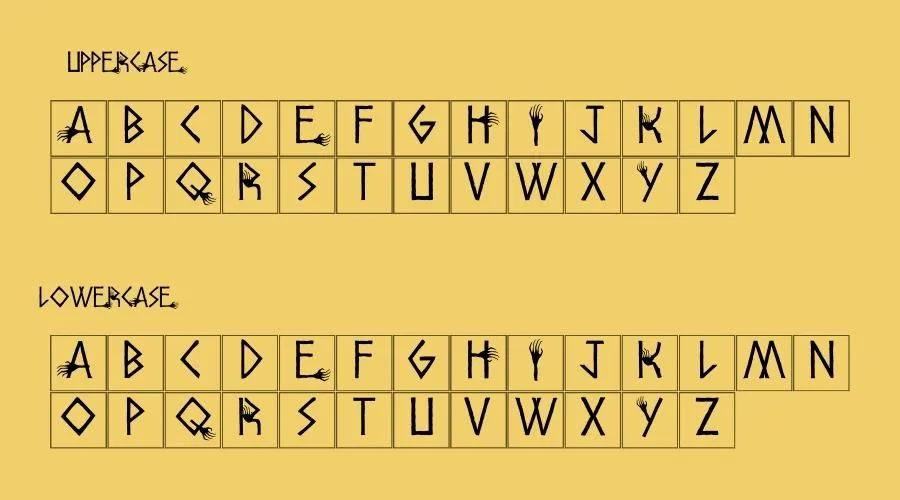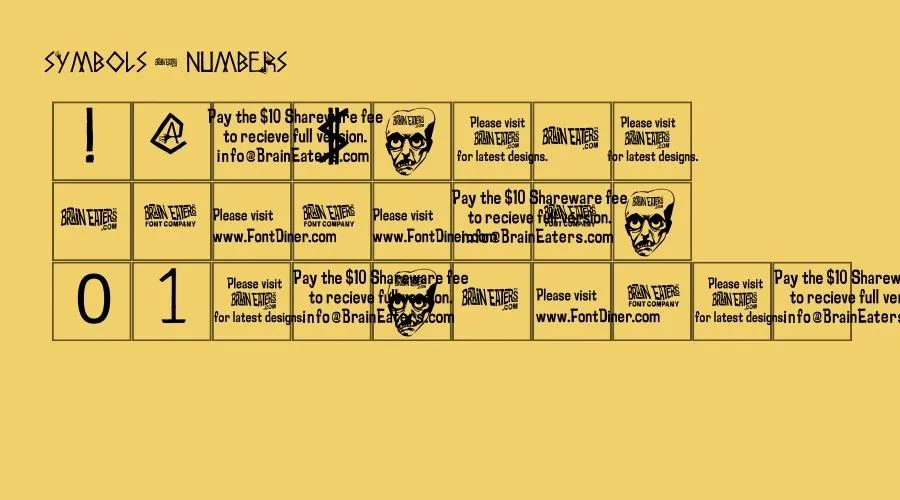
Amhole Font
About Amhole Font
The Amhole Font from Brain Eaters Font Co and it established on Horror, B-Movies, Exploitation Muzak, Sci-Fi, and other junk. This attractive texture is boosted through the punk band Part 1 and contains one unique style.
The glyph count of this typeface is 51. The character set of this typeface is 106 and is included in uppercase letters, symbols, digits, and many other unique types of alphabet sets.
Due to its fancy texture family, you may utilize this typeface for multiple types of projects. Both printed and digital media have considerably used this typeface. Since it is simple to read at a glance.
It is continually utilized for headlines and brief blocks of text. You may also utilize this font for making card designs like invitation cards, postcards, birthday cards, and many more.
What type of font is Amhole Font?
The Amhole Font from Brain Eaters Font Co and it established on Horror, B-Movies, Exploitation Muzak, and Sci-Fi, and looks like a fancy texture family.
Where can I utilize the Amhole Font?
Can I utilize the Amhole font For logo designs?
Yes! You can utilize this texture for all your fun designs, and suitable for logo designs, posters, and much more projects.